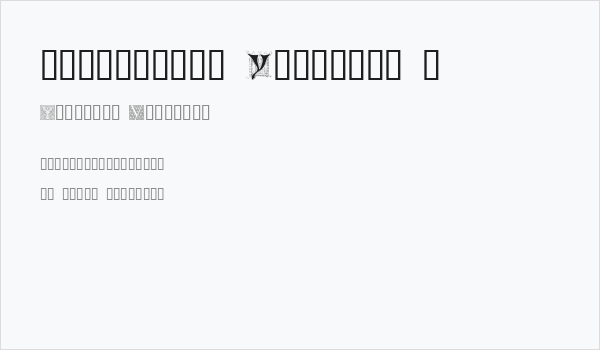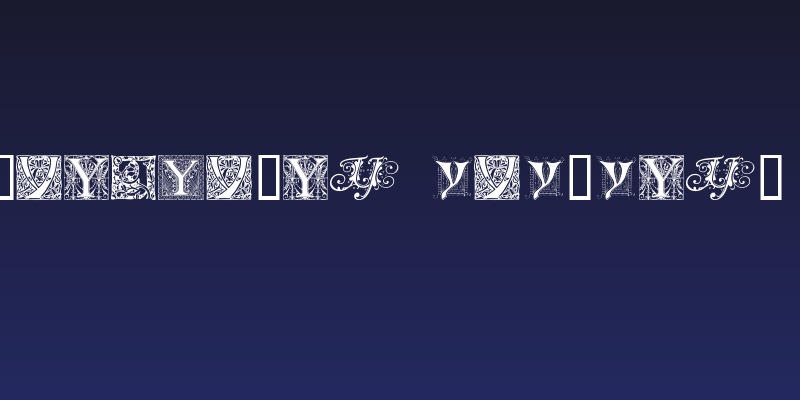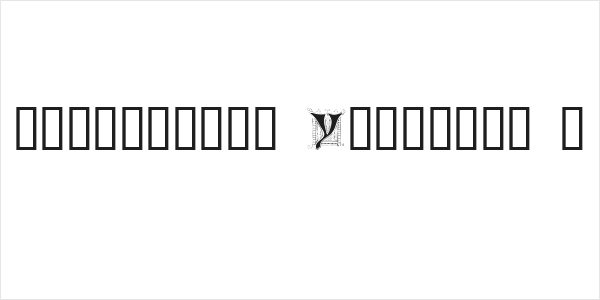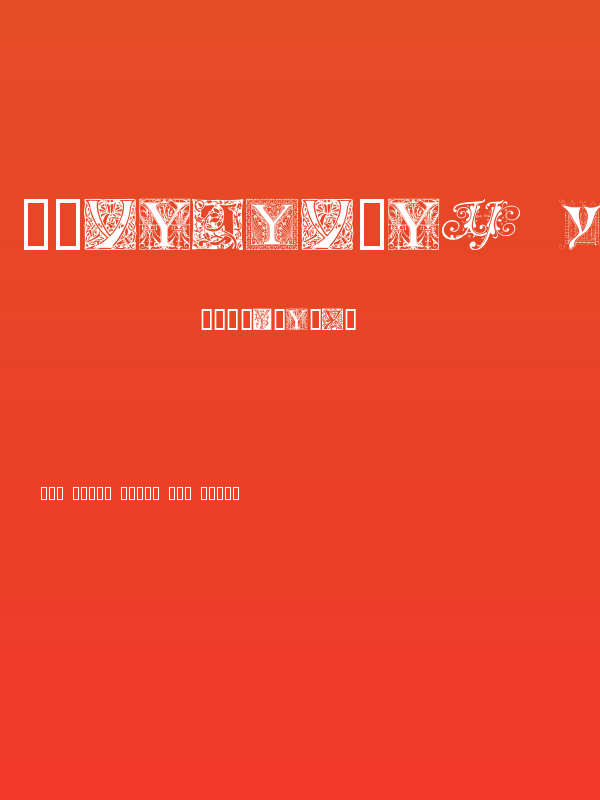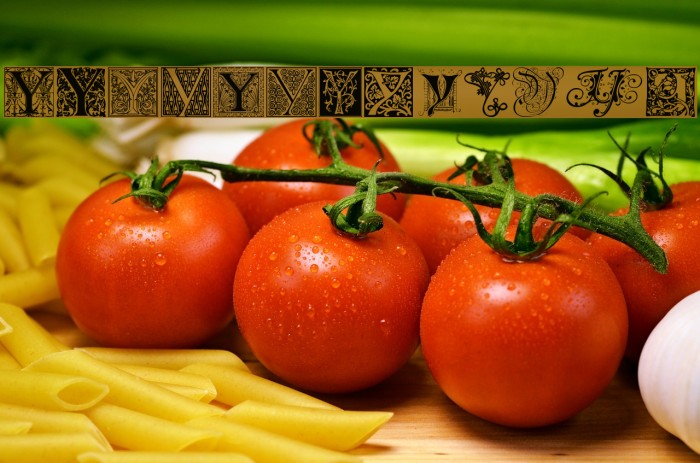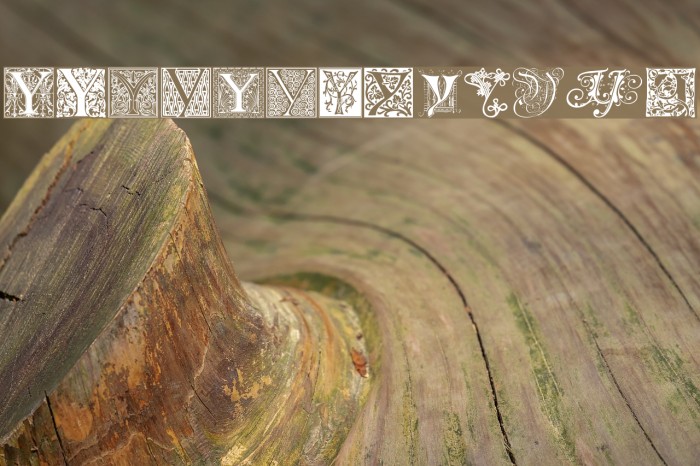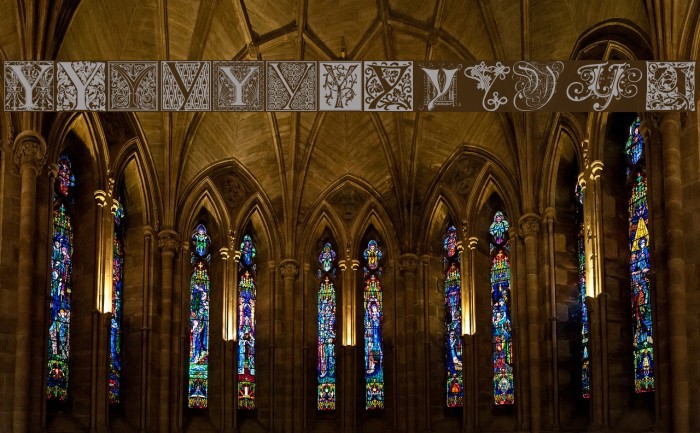
Ornamental Initials Y Font
Ornamental Initials Y Description
This font features highly decorative and intricate initials, each letter enclosed within a square frame. The designs are reminiscent of medieval manuscript illuminations, with elaborate floral and geometric patterns filling the space around the letterforms. The style is ornate and detailed, making each letter a piece of art in itself. The use of negative space is skillful, allowing the letters to stand out despite the complexity of the surrounding designs. This font is ideal for projects that require a touch of historical elegance and sophistication.
| Overall Style | Vintage |
| Use Case | Logos, Headlines, Decorative purposes |
| Proposed Projects | Ideal for wedding invitations, historical themed projects, book covers, or any design requiring a touch of elegance and tradition. |